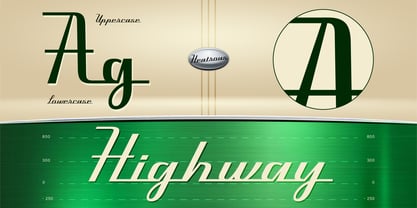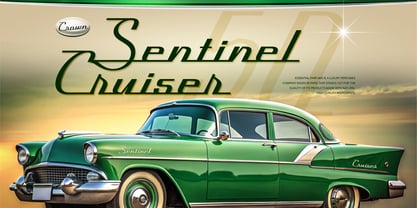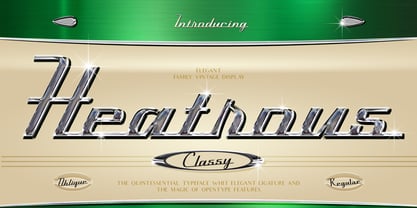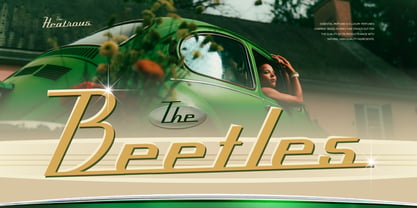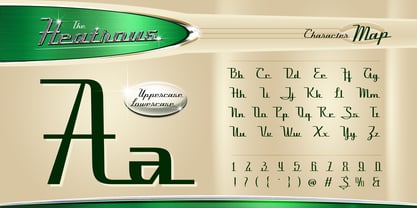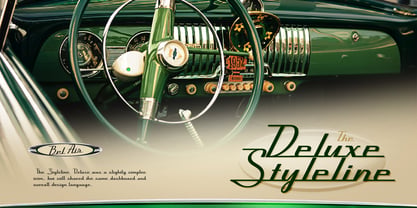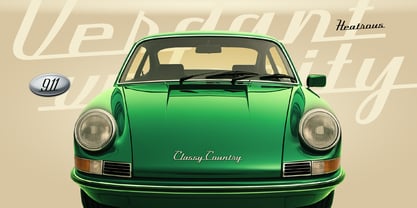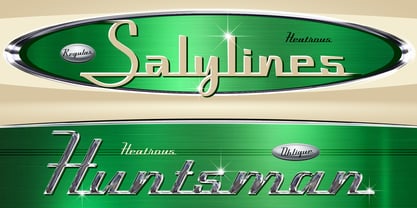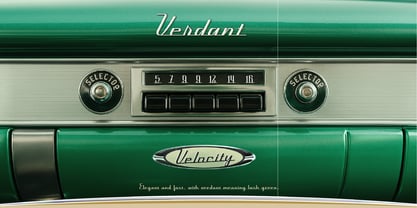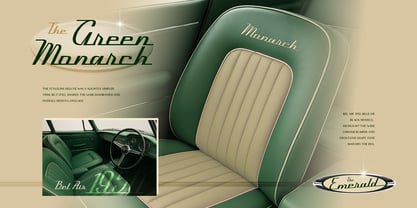
Heatrous
by Burntilldead
The Heatrous Font Family was designed by Eric Kurniawan and published by Burntilldead. Heatrous contains 2 styles and family package options. More about this family
Meet Heatrous, a vintage display typeface that instantly brings you back to the golden era of retro radios, classic speakers, and shiny chrome emblems. With its sleek lines, stylish ligatures, and timeless vibes, this font feels like something you’ve seen on an old-school stereo or a polished car badge.
With its unique Regular and Oblique styles, Heatrous gives you flexibility to mix sophistication with a bit of flair. Clean yet stylish, it’s the perfect choice when you want your design to stand out with a hint of nostalgia.